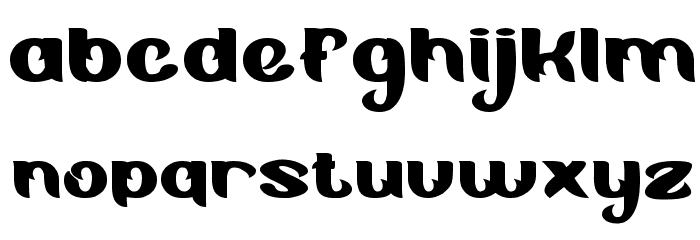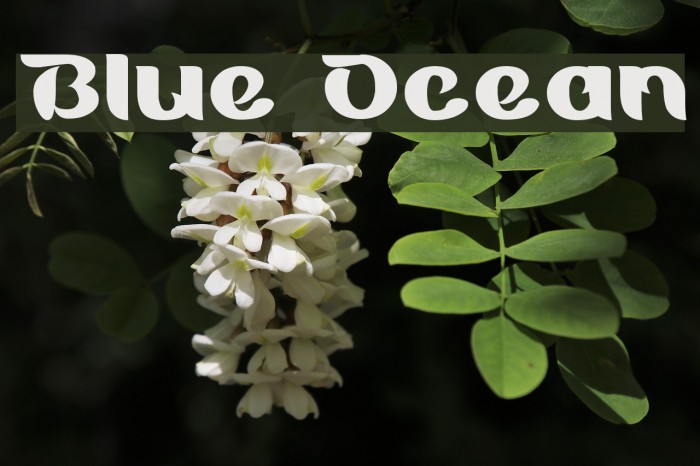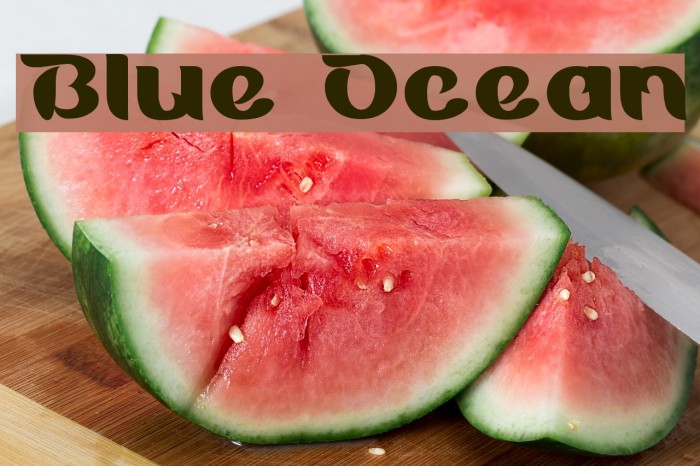
Blue Ocean Font
This font features a bold and playful design with a strong emphasis on rounded, flowing forms. The characters exhibit a unique blend of curves and sharp edges, creating a dynamic and eye-catching appearance. The uppercase and lowercase letters maintain a consistent style, with exaggerated serifs and strokes that give the font a whimsical and decorative feel. The numbers and special characters follow the same design principles, ensuring a cohesive look across all elements. This font is ideal for projects that require a fun and engaging visual impact.
A bold, playful font with rounded, flowing forms and decorative elements.
- Proposed Projects: Ideal for children's books, playful branding, posters, and creative invitations.
- Overall Style: Playful, Decorative